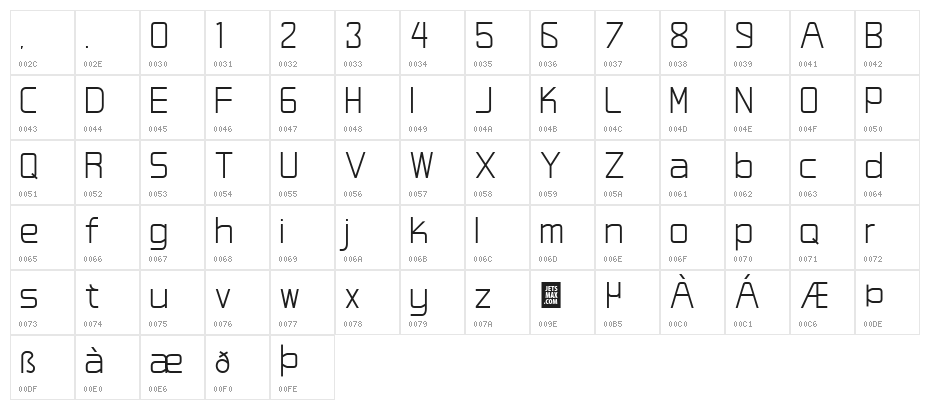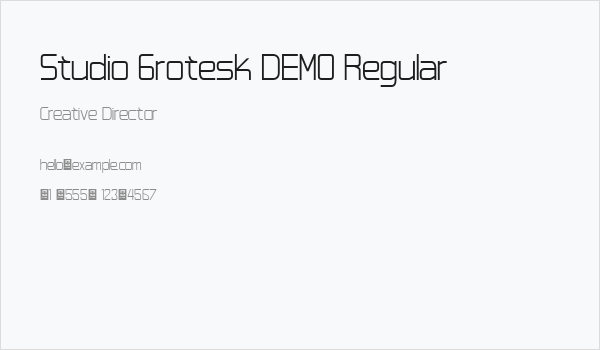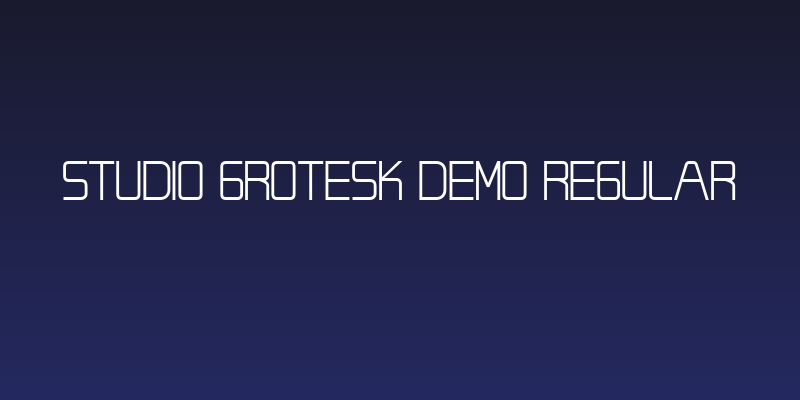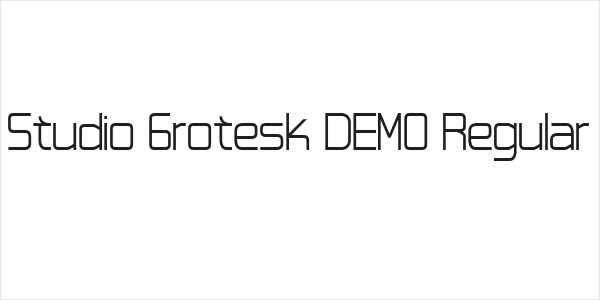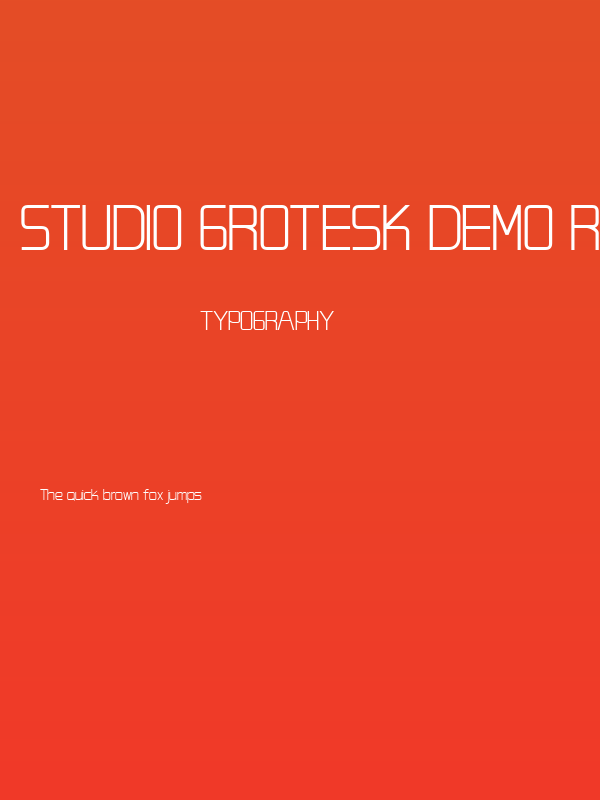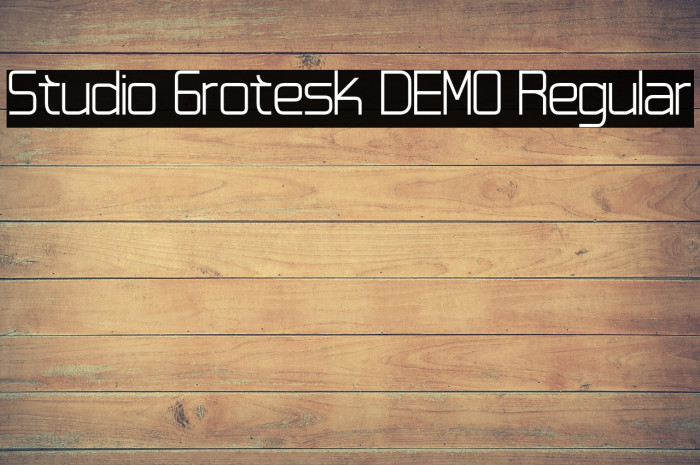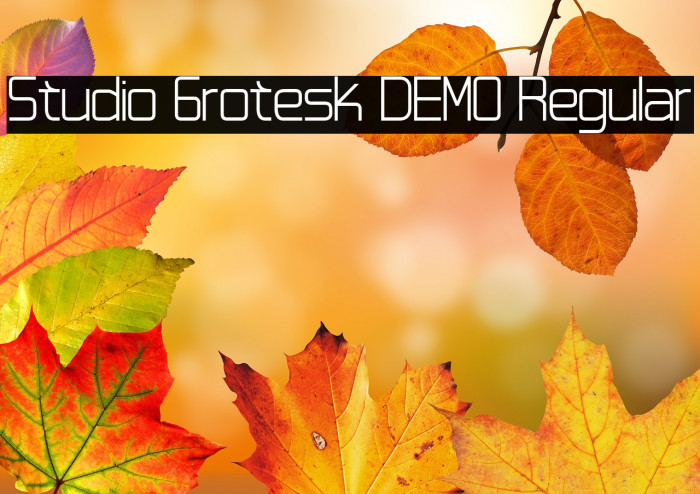
Studio Grotesk DEMO Regular Font
Studio Grotesk DEMO Regular Description
This font features a modern, geometric design with clean lines and a structured appearance. The characters are uniform in width, contributing to a balanced and harmonious look. The uppercase and lowercase letters maintain a consistent height, enhancing readability. The numerals are distinct and align well with the overall style, making them suitable for various applications. The font's simplicity and clarity make it versatile for both digital and print media.